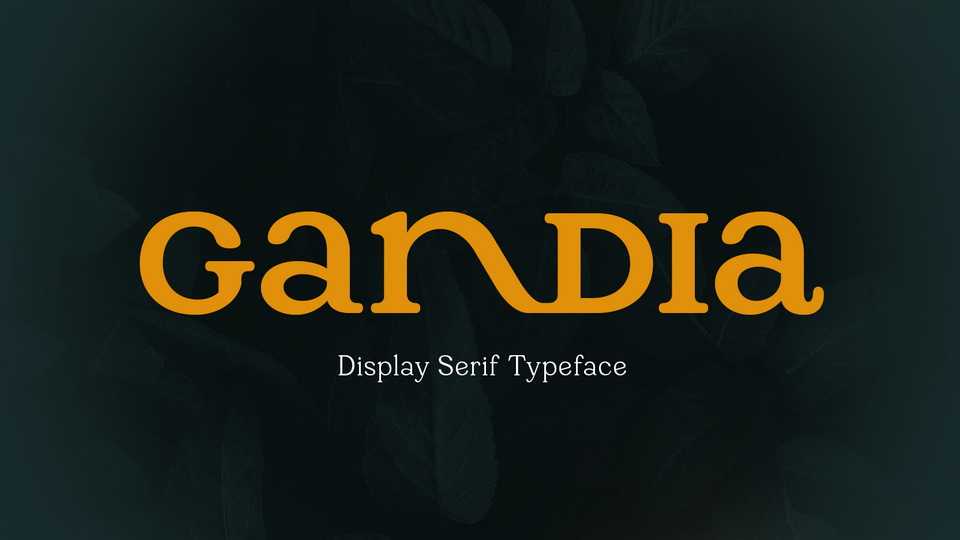
Gandia Display Serif Font › Fontesk – Download Grátis
Download Gandia font, a true form of elegance and refinement. Curved corners give a soft yet bold impression. Inspired by the fast-growing vintage culture, Gandia typeface can easily blend with modern retro design.